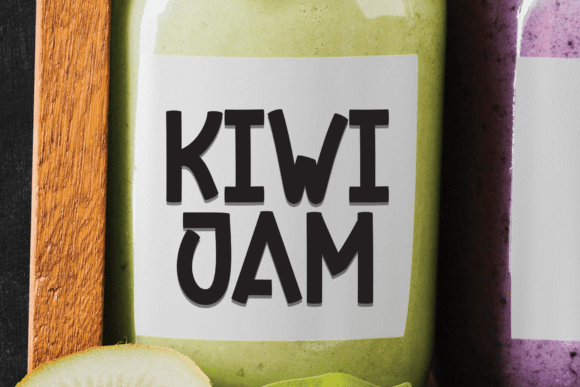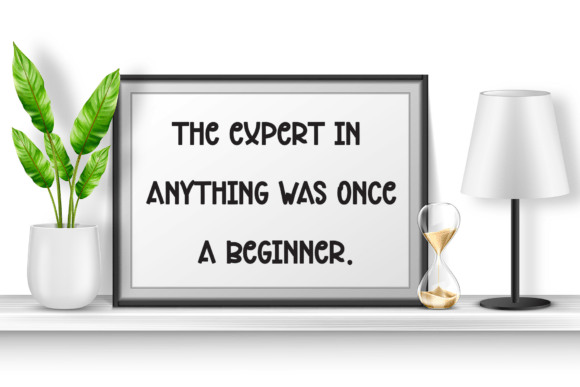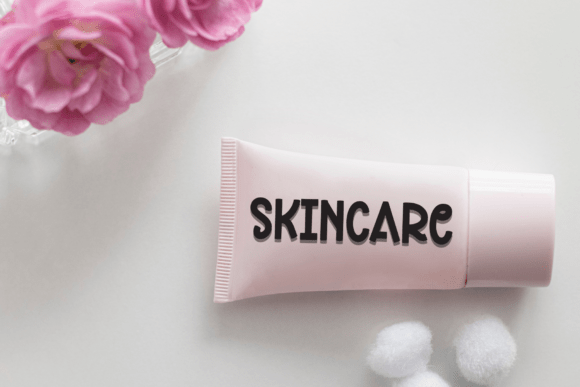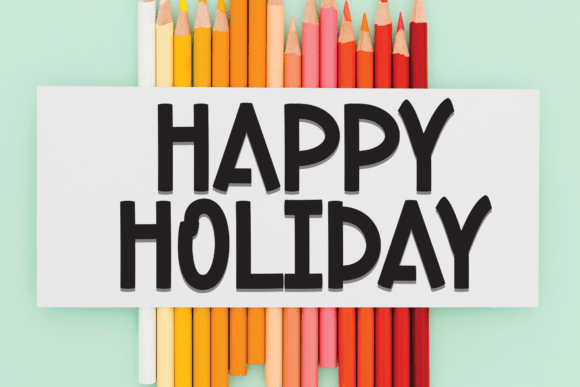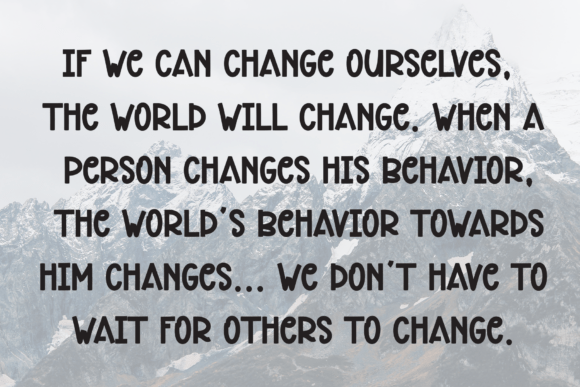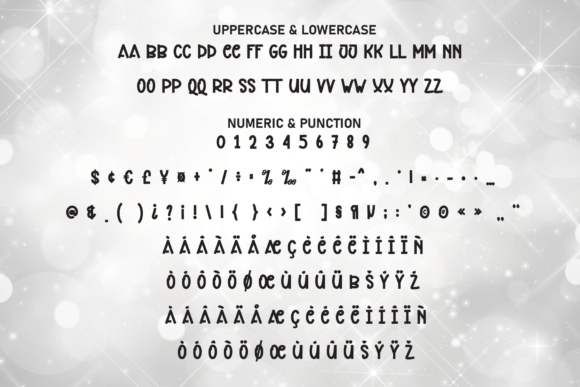
Introduction to Shine Creative Font
You’ve got that perfect idea for a creative project, but something’s missing – the perfect font. You’ve scrolled through countless design resources, searching for that one font that captures the essence of your vision. That’s where Shine Creative Font comes in – a game-changer for designers looking to elevate their projects with a touch of elegance and friendliness.
Imagine a font that radiates a fresh, friendly vibe, perfect for packaging, posters, and social media graphics. With its clean lines and relaxed structure, Shine Creative Font is a high-quality design resource that’s sure to make your projects stand out. And the best part? It’s available for free download, making it an accessible choice for designers on a budget.
Whether you’re working on a small creative project or a large-scale design initiative, Shine Creative Font is a valuable addition to your design toolkit. Its transparent background and polished appearance make it a versatile choice for a wide range of applications.
Key Features of Shine Creative Font
- Perfect for graphic designers, digital artists, and creatives looking for a unique font
- Easy to customize and manipulate for a personalized look
Honest Review: Shine Creative Font
As a designer, I’m always on the lookout for high-quality design resources that can elevate my creative projects. The Shine Creative Font is one such resource that caught my attention.
- Unique and Creative Styling: The Shine Creative Font boasts a unique and creative style that sets it apart from other fonts.
- High-Quality Design: The font is designed with attention to detail and precision, making it perfect for professional and personal projects.
While the Shine Creative Font is an excellent resource, there are a few limitations to consider.
- Limited Character Set: The font has a limited character set, which may not be suitable for projects that require a wide range of characters.
- No Bold or Italic Variations: The font only comes in regular style, which may limit its use in certain design scenarios.
Overall, the Shine Creative Font is a great addition to any designer’s toolkit. While it has its limitations, its unique style, high-quality design, and free download make it an excellent choice for creative projects.
Use the Shine Creative Font with a transparent background to create a clean and modern design. Experiment with different font sizes, colors, and combinations to achieve the desired look for your creative project.
Common Use Cases for Shine Creative Font
The Shine Creative Font is ideal for use in branding materials, social media graphics, and marketing materials. Its high-quality design and versatility make it a popular choice among designers and non-designers alike.